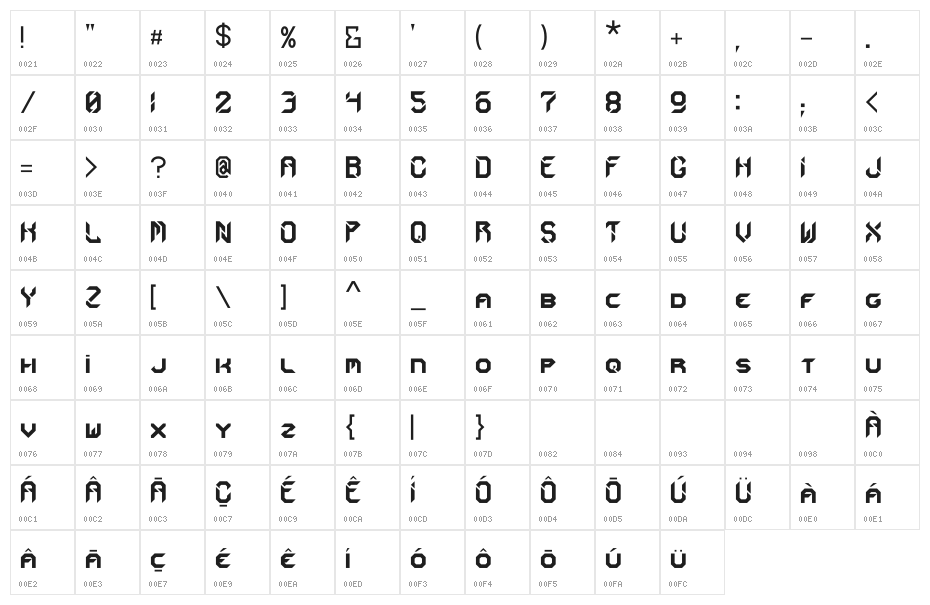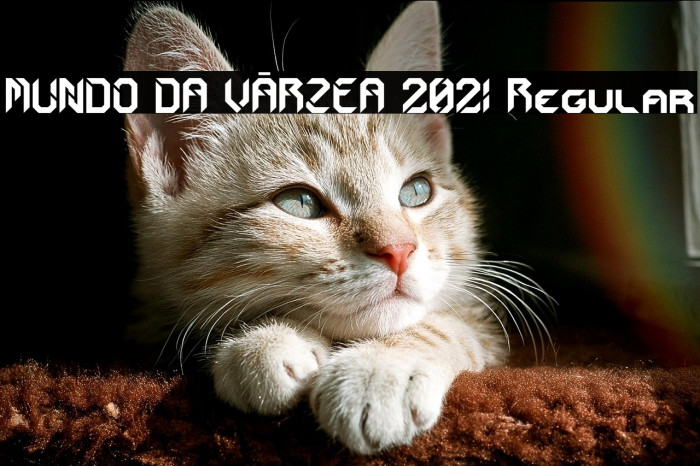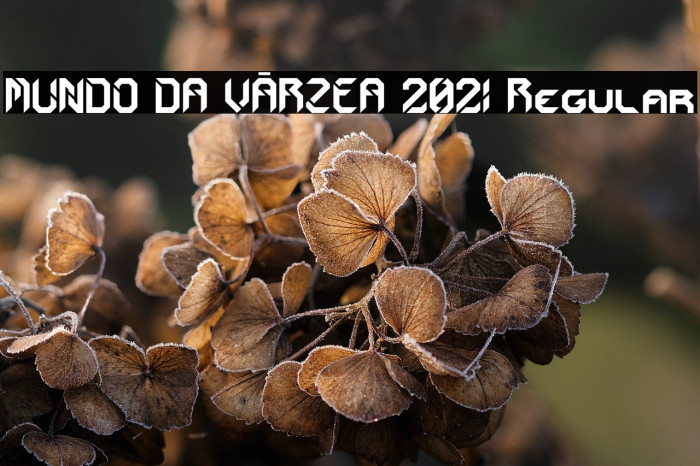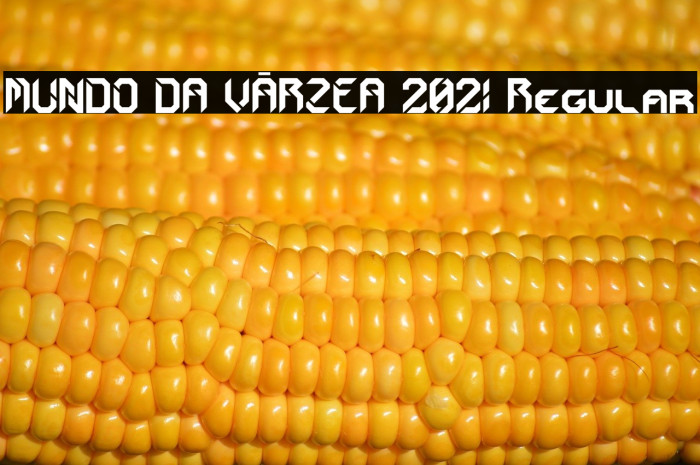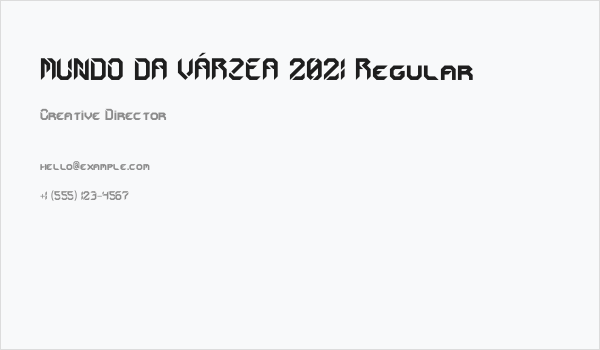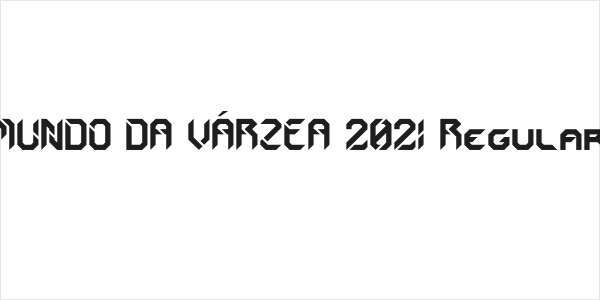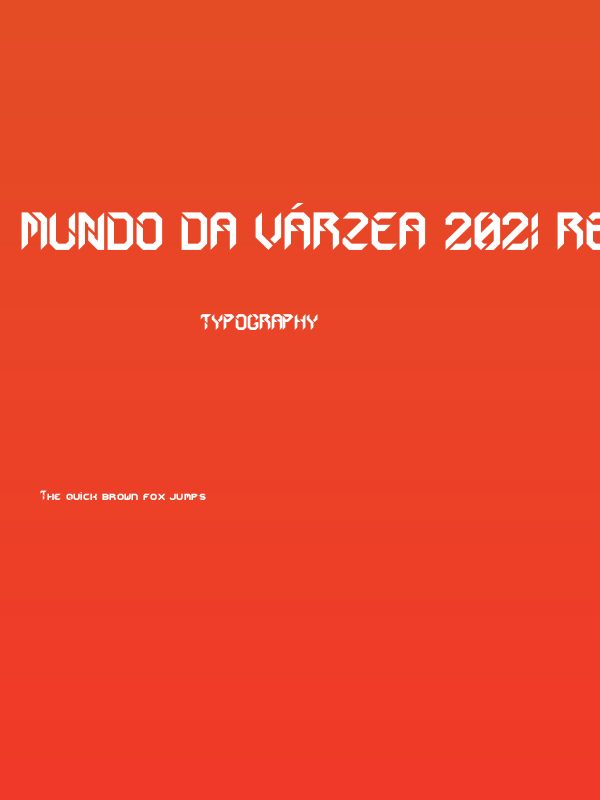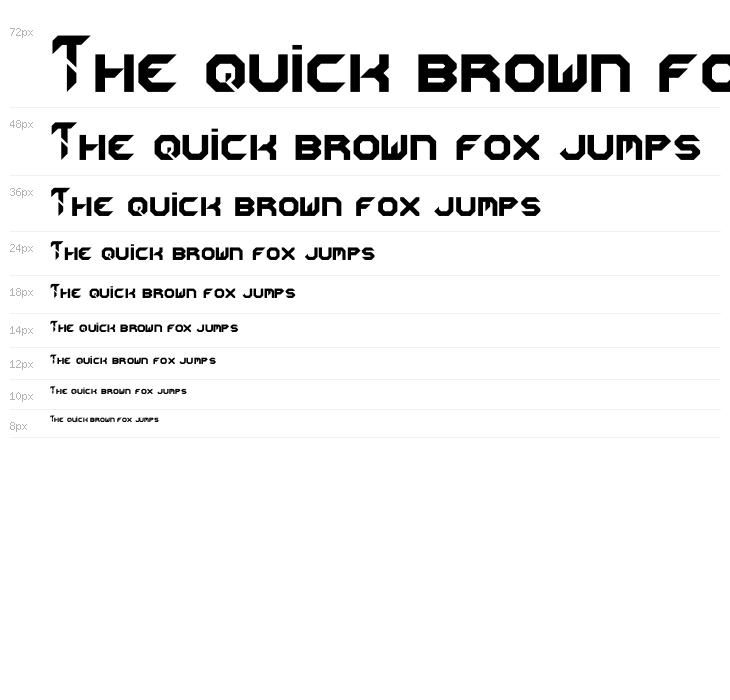
MUNDO DA VÁRZEA 2021 Regular Font
MUNDO DA VÁRZEA 2021 Regular Description
This font features a bold, geometric design with sharp angles and a futuristic aesthetic. The uppercase letters are crafted with a distinct angularity, creating a sense of movement and energy. The lowercase letters maintain the same angular style, ensuring consistency across the typeface. Numbers and special characters are designed with the same bold, geometric approach, making them stand out. The font's unique style is ideal for projects that require a modern and edgy look.
| Proposed Projects | Ideal for branding, posters, video game graphics, and any project needing a modern, edgy aesthetic. |